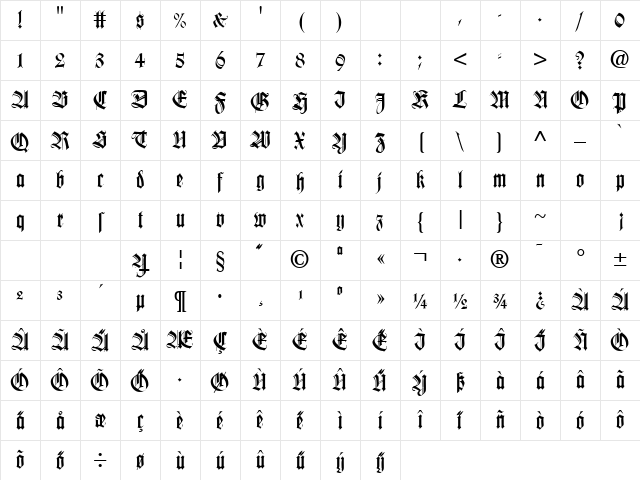
Ranch Normal Free Font
Ranch Normal
Design Context for Ranch
Ranch is a composed and adaptable typeface that performs quietly and consistently across a wide range of design contexts.
Pro Tip: Use Ranch in both headline and body roles to test its range before committing to a single application.